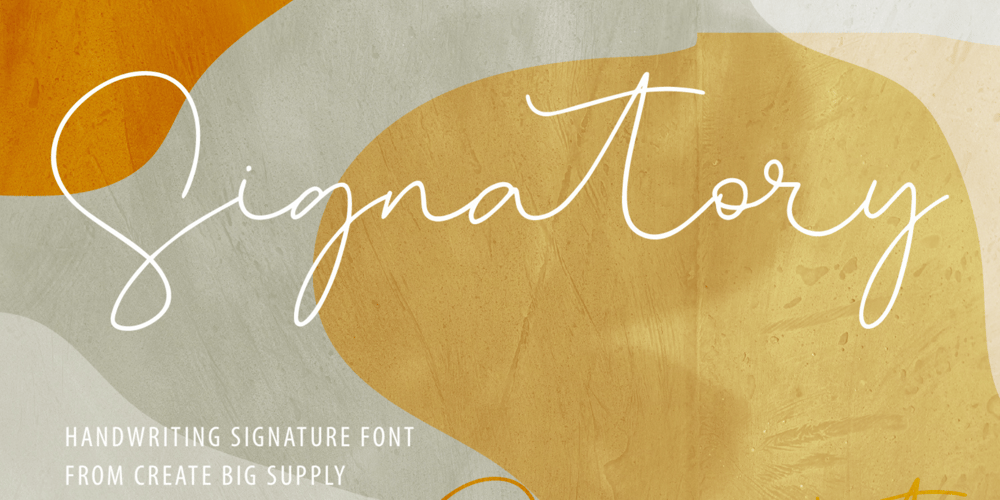
Signatory Font Family was designed by Irpan Maulana and published by Create Big Supply. Signatory contains 1 styles and family package options. Introducing Signatory, a captivating stylized handwritten signature font that adds a touch of elegance and sophistication to your designs. With its beautiful style and versatile features, Signatory is perfect for creating stunning wedding invitations, exquisite stationary art, eye-catching social media posts, and more. Let your creativity flourish as you explore the endless possibilities with this remarkable font.Signatory offers a comprehensive set of features, including both uppercase and lowercase letters, numbers, and punctuations. Its multilingual support ensures seamless integration of various languages, allowing you to connect with a diverse global audience and convey your message effectively. Whether you’re designing for personal projects or professional endeavors, Signatory provides the tools you need to create visually striking and impactful compositions.With PUA encoding, accessing the amazing glyphs and ligatures of Signatory is effortless. These special characters add unique flourishes and connections, elevating the visual appeal of your text and giving it a personalized touch. The signature style of Signatory adds a touch of authenticity and elegance, making it an ideal choice for creating logos, branding materials, personal signatures, and more.Unleash your creativity and make a lasting impression with Signatory. This font combines the beauty of handwritten signatures with a stylish flair, allowing you to create designs that exude professionalism and refinement. Whether you’re a graphic designer, a creative professional, or an enthusiast, Signatory is the perfect addition to your font collection, offering endless possibilities for captivating and memorable designs.